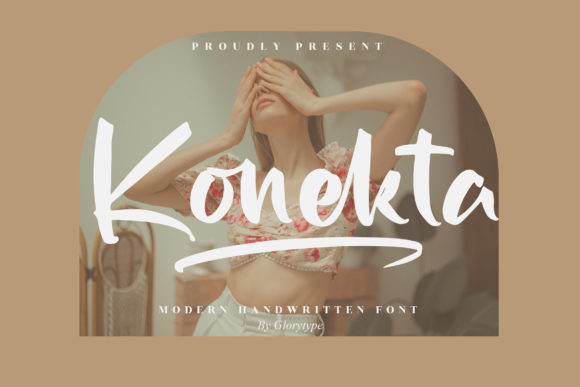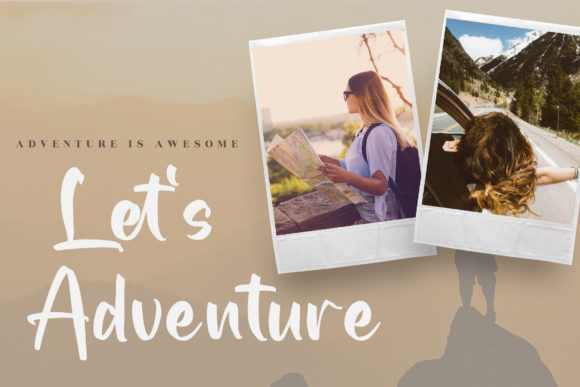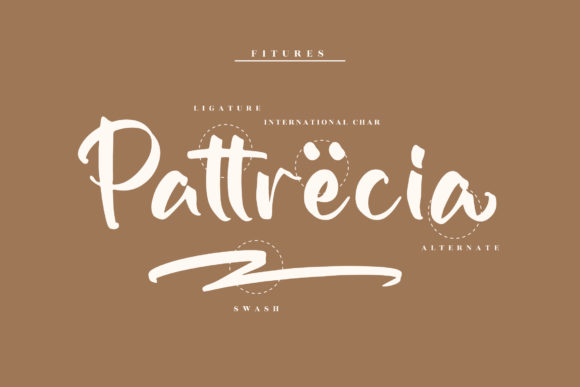
About Konekta Font
Konekta is a delicate and elegant handwritten font. Its distinct and well balanced letters make this font a masterpiece. Fall in love with its incredibly versatile style and use it to create spectacular designs! Konekta is PUA encoded which means you can access all of the glyphs and swashes with ease!